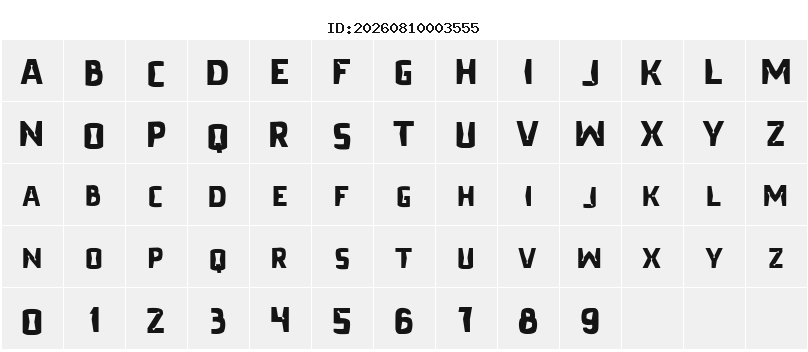
Pacifica Preview
• Font Name: Pacifica
• Designer: MRfrukta (Fontfirma)
About Pacifica.ttf
Pacifica.ttf is a modern, elegant sans-serif font designed for ultimate readability and visual harmony. Perfect for branding, headlines, web design, and print materials.